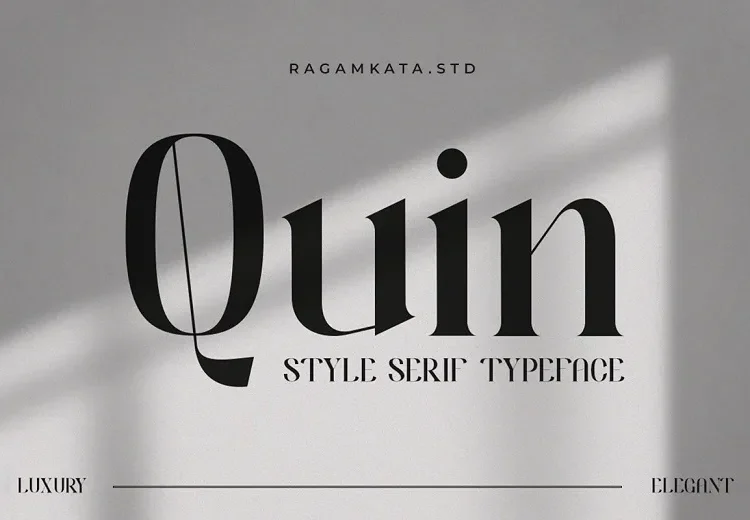
Quin Font
Quin is a beautifully crafted serif typeface that is designed to be the focal point of any design project. Its classic and refined aesthetic makes it ideal for creating a strong visual impact, particularly in large-scale headers, bold text moments, or memorable quotes. The elegance of Quin is evident in its well-balanced contrast and organic shapes, which lend a sense of sophistication and luxury to any design it graces.
This typeface is perfect for designers who want to create a lasting impression with their work. Whether you’re working on luxury branding, high-end editorial layouts, or elegant typography projects, Quin is designed to captivate and draw attention. Its distinctive character is not just about visual appeal; Quin also ensures that your text is not only beautiful but also highly readable, even at larger sizes.
Quin was meticulously designed to be the star of the show, effortlessly becoming the centerpiece of any composition. Its versatility makes it a perfect fit for a variety of applications, from logos and branding materials to stunning typographic posters and luxurious product packaging. With Quin, you can elevate your designs to new heights, imbuing them with a sense of timeless elegance and modern sophistication.